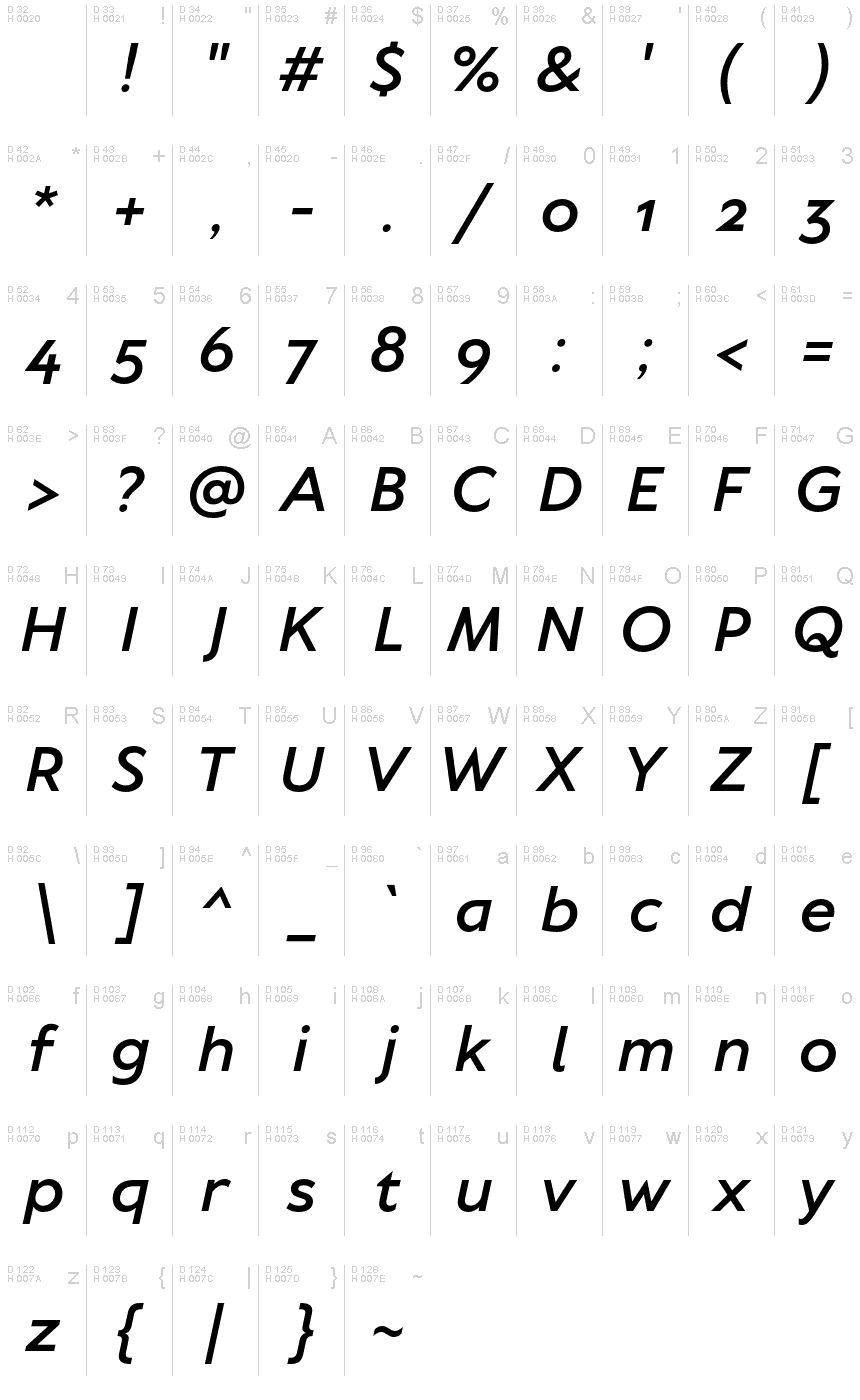
TT Wellingtons Trl DemiBold It
TT Wellingtons DemiBold It is a stunning sans serif font from TypeType that commands attention with its semi-bold weight and sleek design. Its sophisticated style makes it ideal for use in elegant projects such as wedding invitations, high-end fashion magazines, and luxury branding materials. This versatile font can also be used in more contemporary projects like tech websites or modern advertising campaigns to create a clean, minimalist look. With its legibility and distinctive character, TT Wellingtons DemiBold It is the perfect choice for designers seeking a classic yet contemporary typeface that will make their work stand out from the crowd.